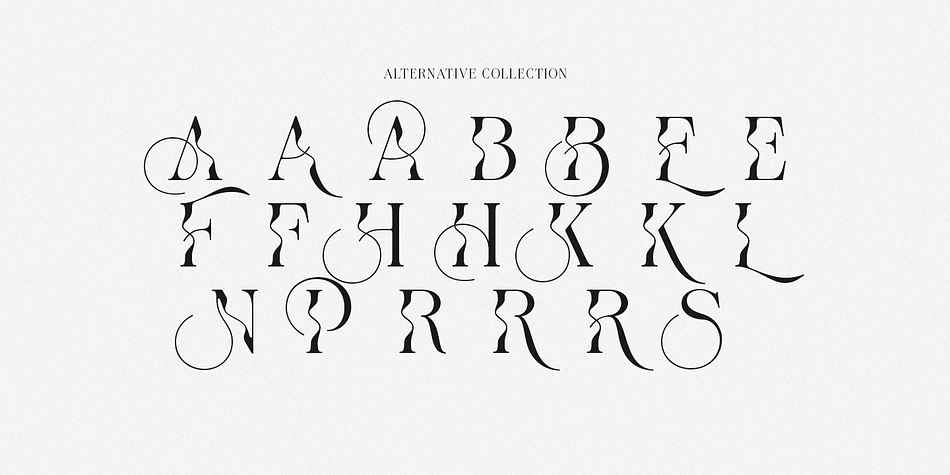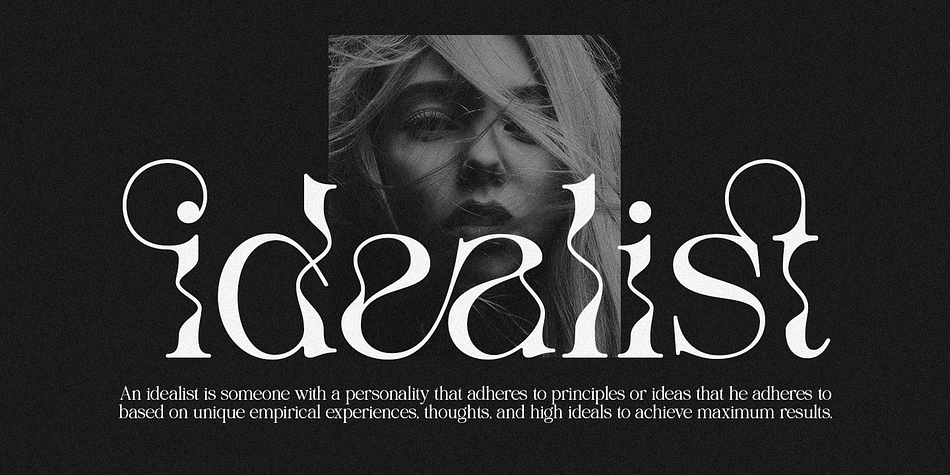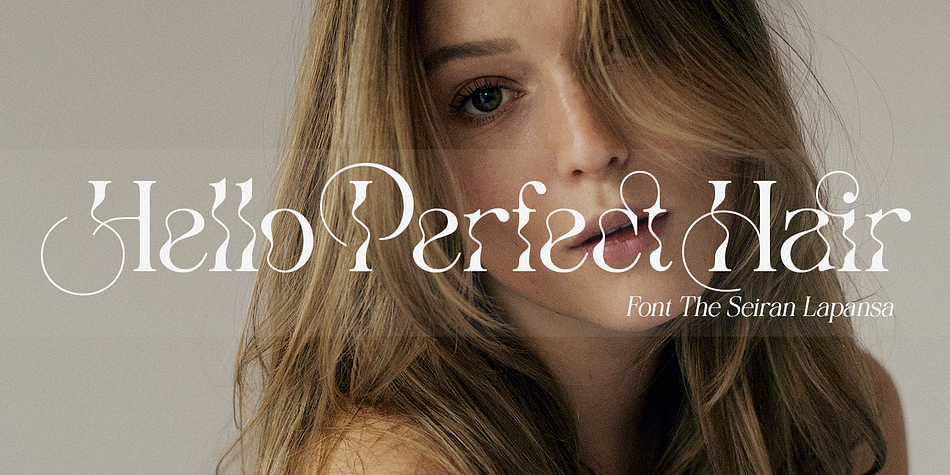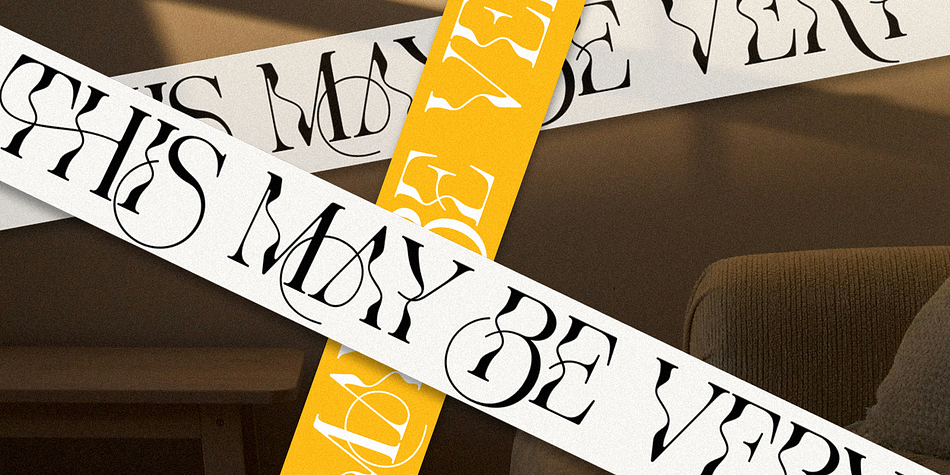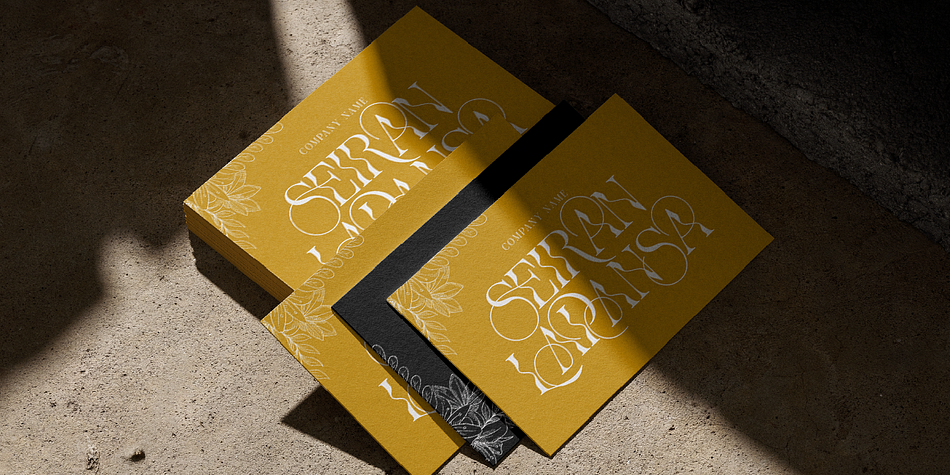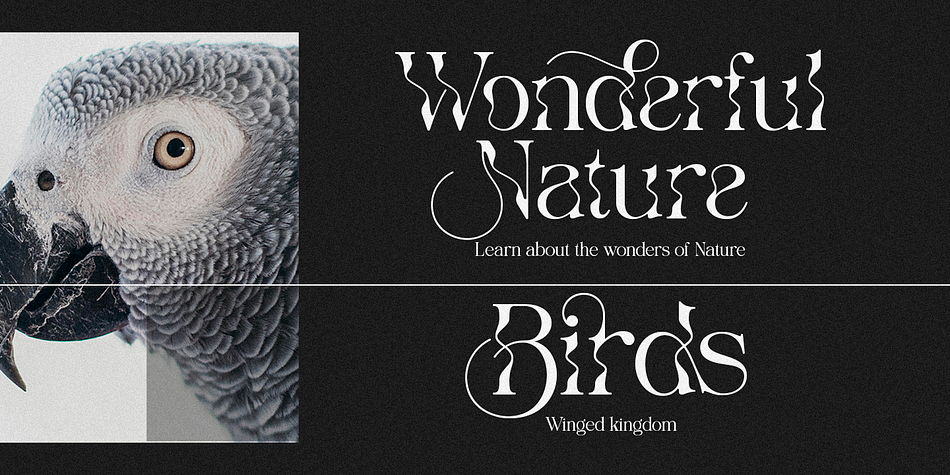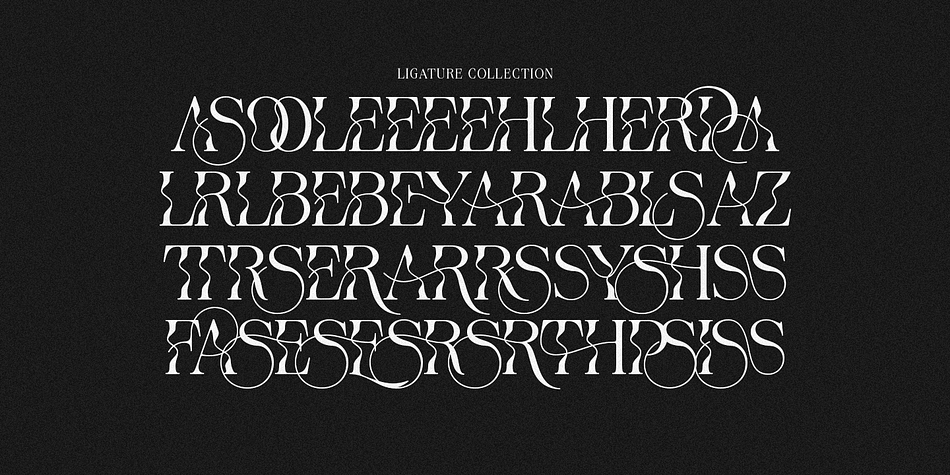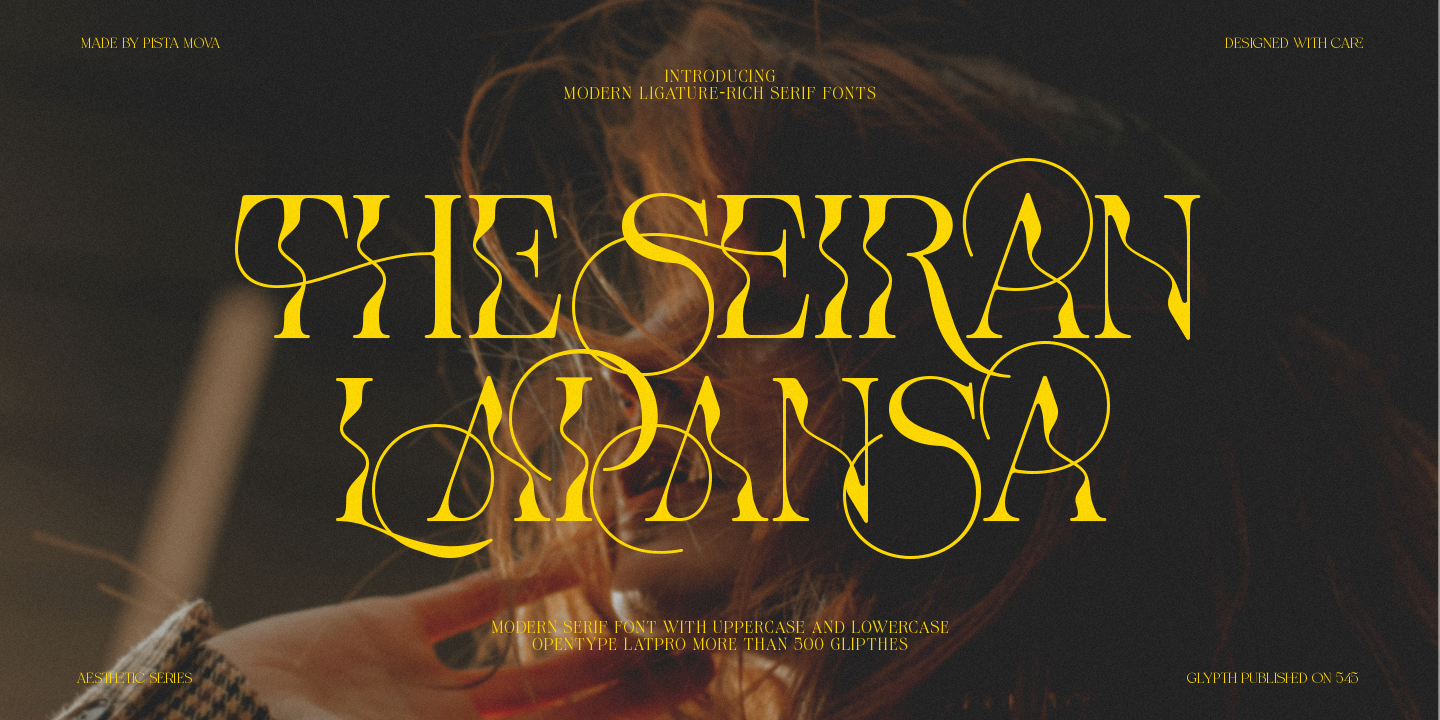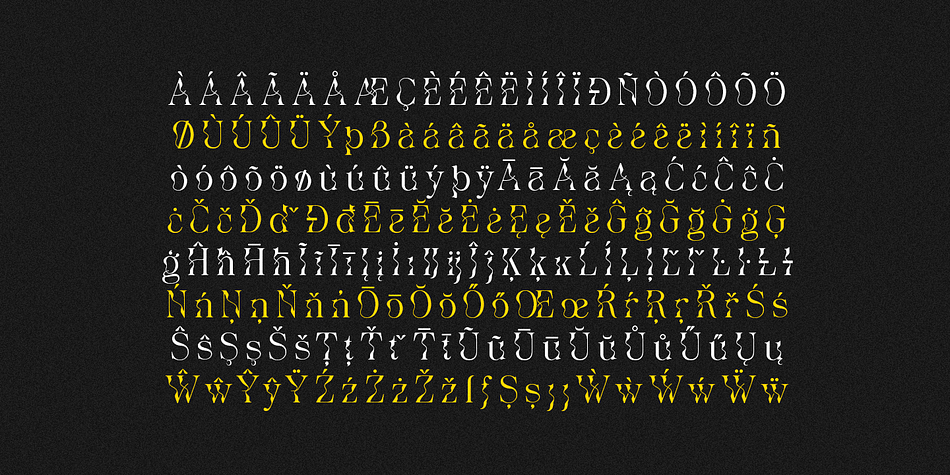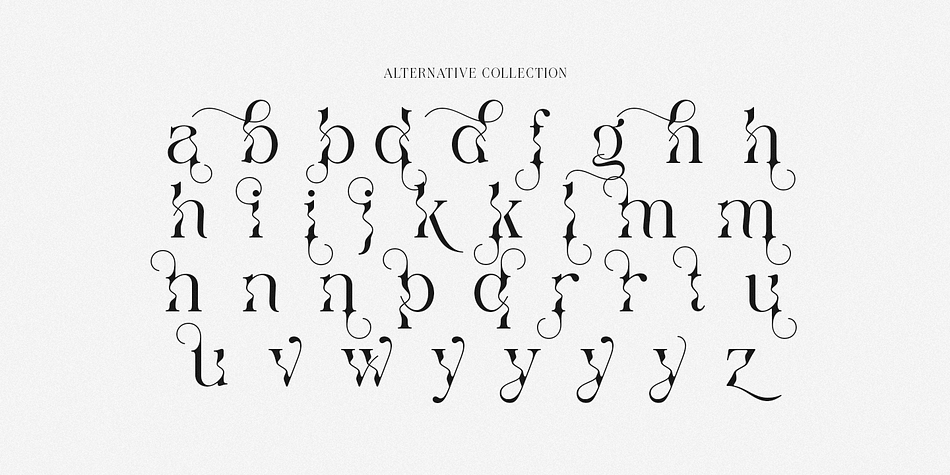
The Seiran Lapansa
The Seiran Lapansa is an art nouveau font family. This typeface has two styles and was published by Pista Mova.
The Seiran Lapansa, a stylish serif font that perfectly blends elements of modern serif and old serif styles, resulting in a unique and alluring typographic experience. This font combines the elegance of modern serifs with the charm of old serif styles, resulting in an alluring and versatile typographic choice.
The old serif aspect of The Seiran Lapansa font found in the capitals gives a sleek and sophisticated touch to the letterforms. The font has clean lines, sharp edges, and a sleek look, which reflects the elegance and professionalism associated with modern design.
The Seiran Lapansa is inspired by today’s look serif fonts, this style introduces more ornamental details, slightly curved serifs, and subtle variations in stroke width.